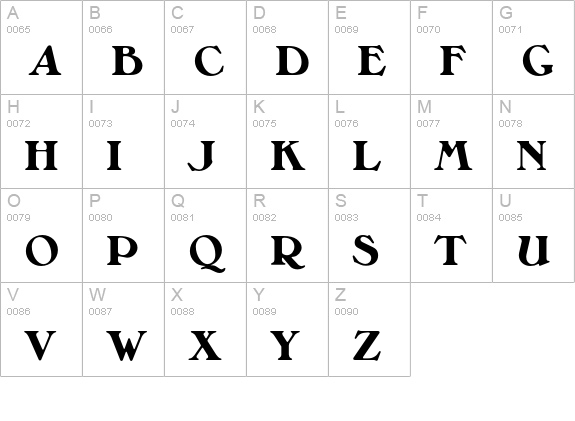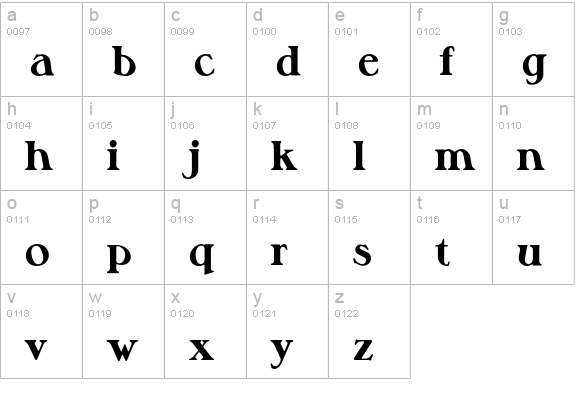
Melbourne-Bold is a strong, high-contrast variant in the Melbourne typeface family \xE2\x80\x94 well suited to headlines, attention-grabbing titles, and strong calls-to-action.
Melbourne-Bold is a striking and versatile font that commands attention with its bold and modern design. This font is perfect for creating eye-catching headlines, posters, and branding materials. With its clean lines and strong presence, Melbourne-Bold is sure to make a statement in any design project. The best part? Melbourne-Bold is completely free to download at FontsMarket.com! Simply head over to the website to grab this fantastic font and start using it in your projects today. Whether you're designing a website, creating marketing materials, or working on a new logo, Melbourne-Bold is the perfect choice for adding a touch of sophistication and style. Download it now and elevate your designs with this impressive font.